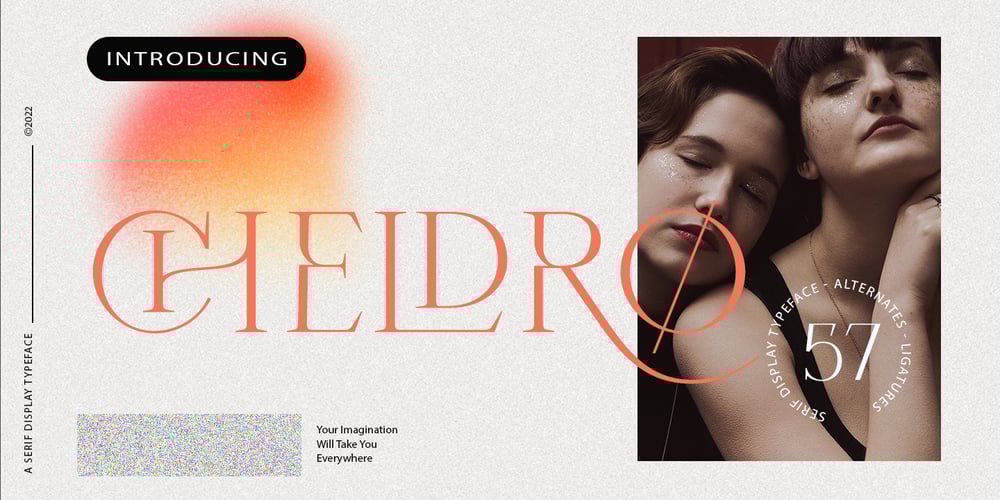
Cheldro Display
Cheldro Display font
Cheldro Display Font Family was designed by Mira Kartika Sari and published by Papermode Co. Cheldro Display contains 1 styles and family package options. Try Cheldro, enjoy the richness of OpenType features and let her fun and elegant excitement make you happy and enhance your creativity! You can use this font very easily.